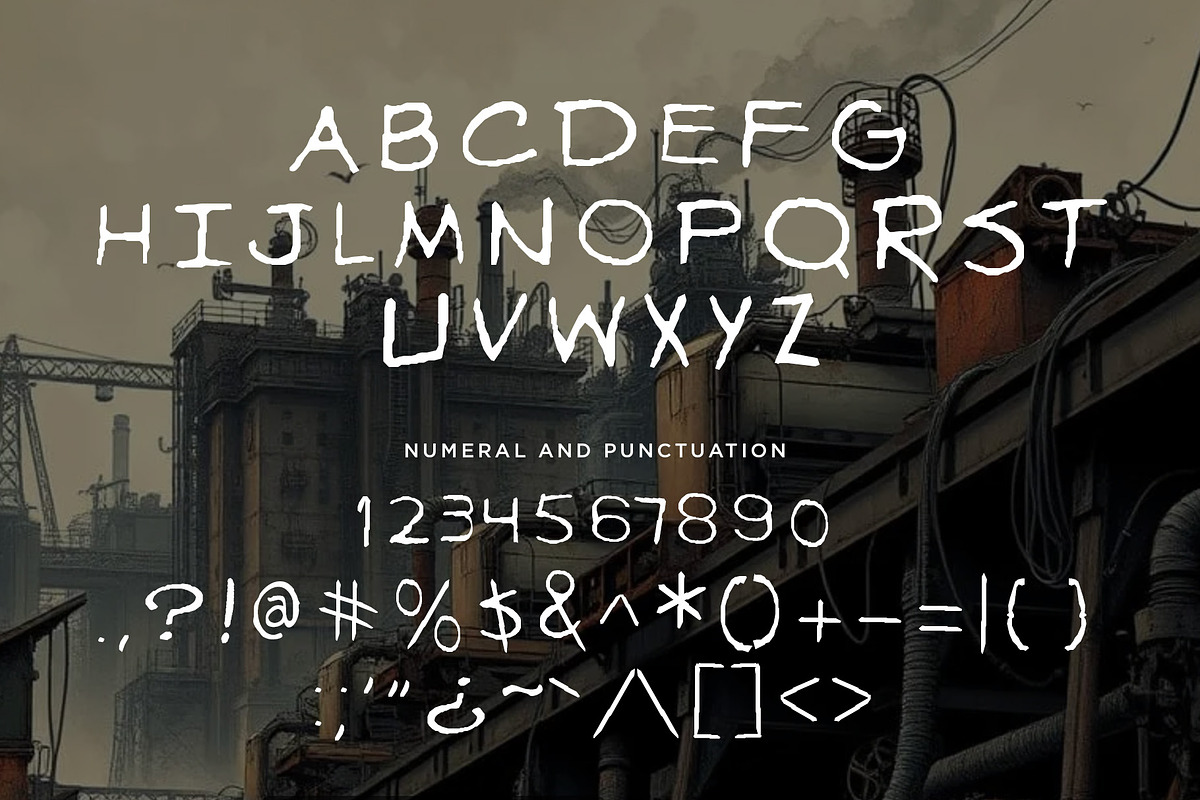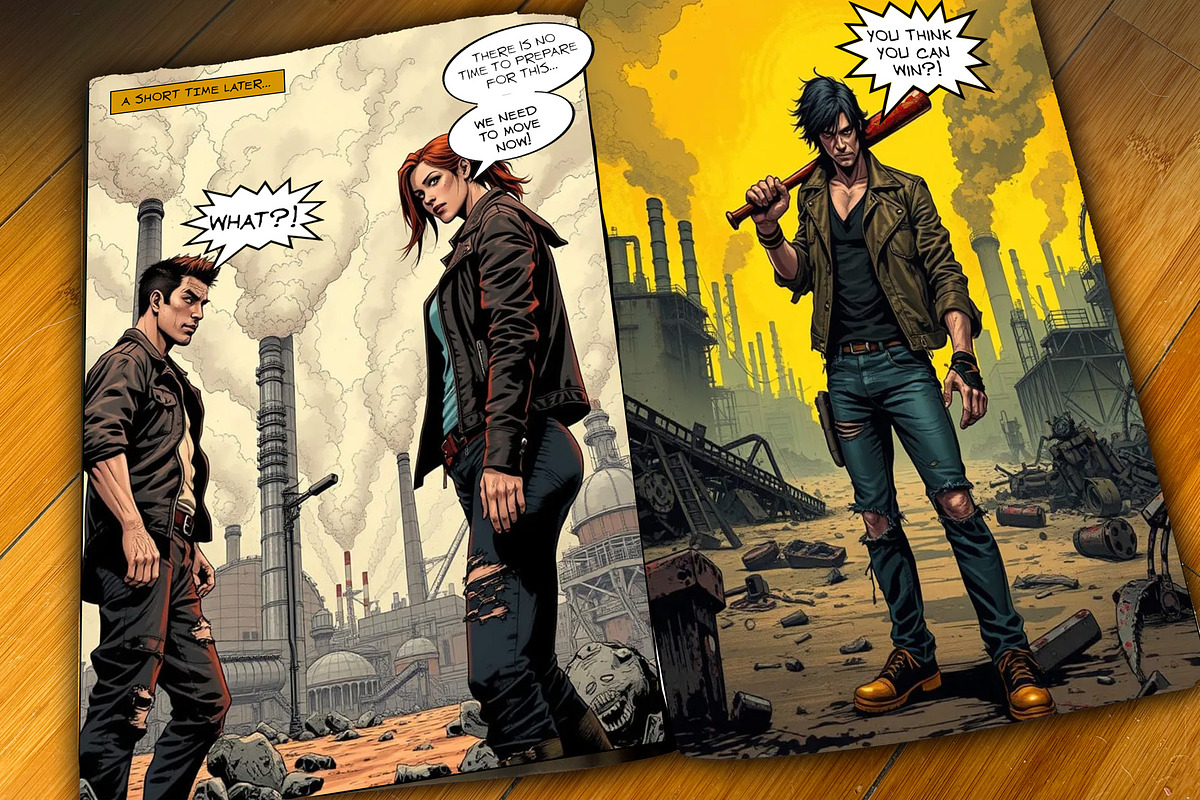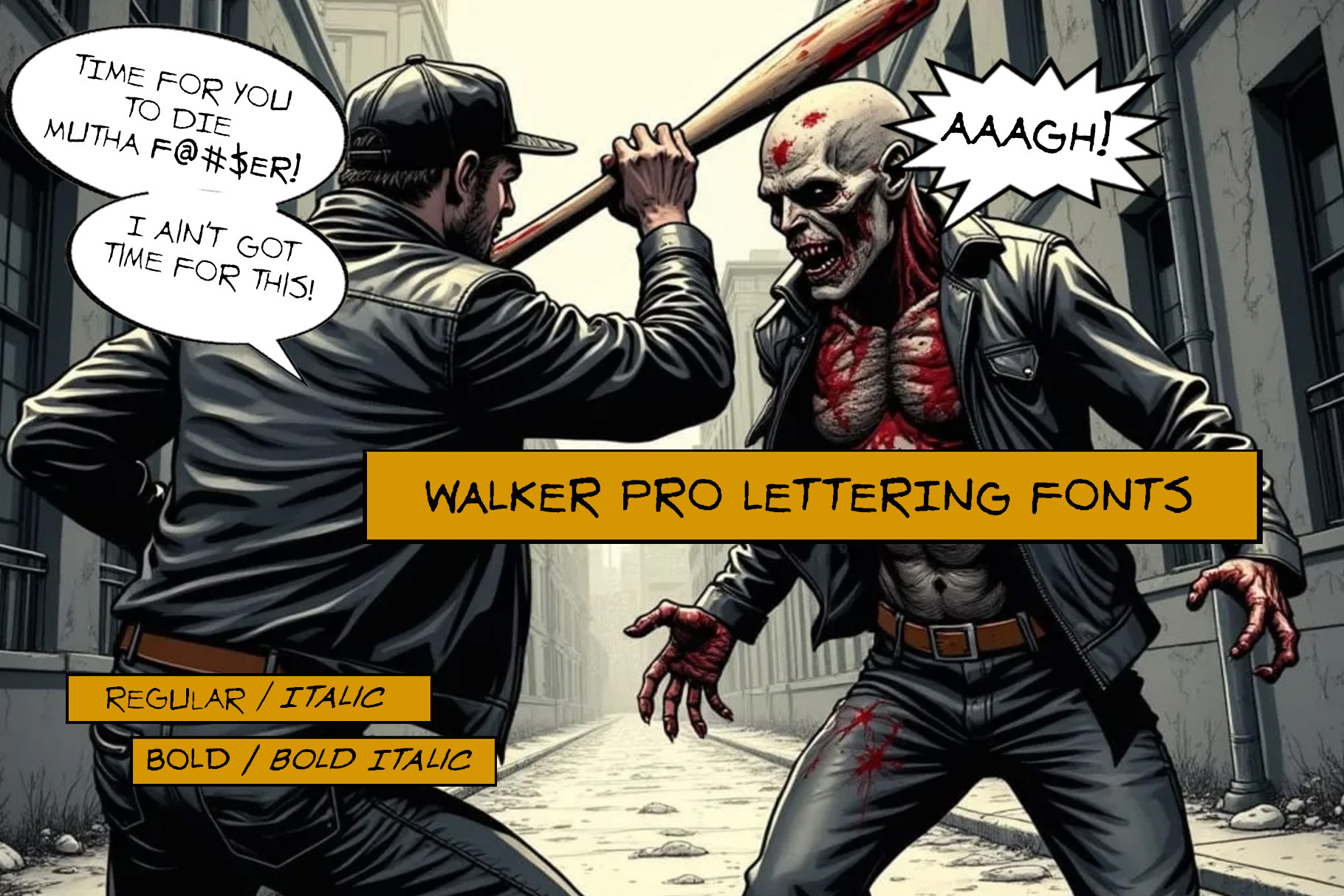
Walker Graphic Novel Lettering Font
Introducing Walker Lettering Pro—The Bold and Gritty Hand Lettering Graphic Novel / Comic Book Font inspired by the 'Walking Dead' Graphic Novels
Inspired by the raw, hand-lettered style of The Walking Dead graphic novel, WALKER LETTERING PRO delivers a punch of intensity and style to comic book speech bubbles. Perfect for branding graphic novels and comic books, this font captures the energy and drama of classic comic book lettering.
Whether you're designing for horror, action, or dystopian themes, WALKER LETTERING brings bold impact and style to your creative projects. With sharp edges, dynamic strokes, and a hand-drawn feel, it’s ideal for making statements that stand out.